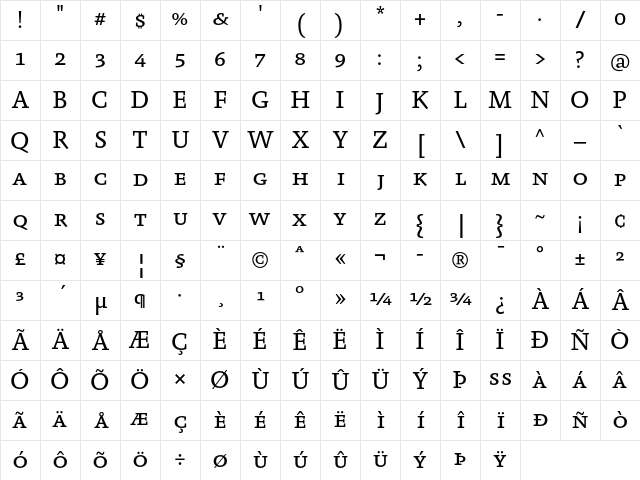
Absara TF Regular SC Regular
Complete Absara TF Regular SC Regular glyph index. Displaying only characters natively supported by Absara TF Regular SC Regular font.
Design Context for Absara TF Regular SC
Absara TF Regular SC is a composed and adaptable typeface that performs quietly and consistently across a wide range of design contexts.